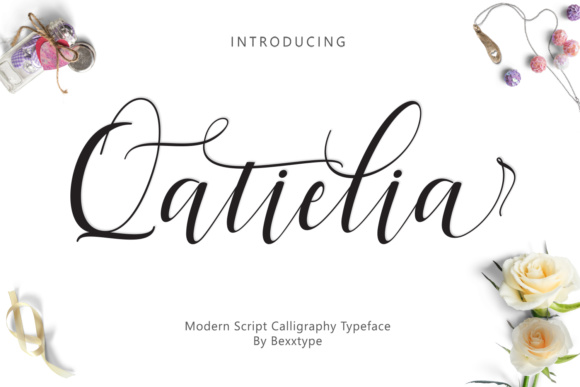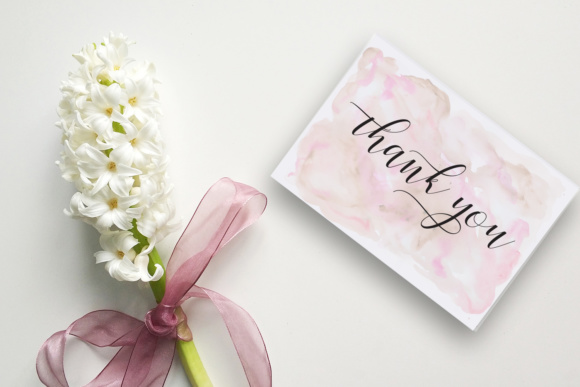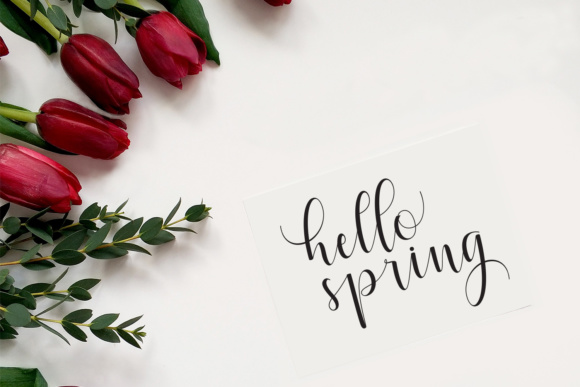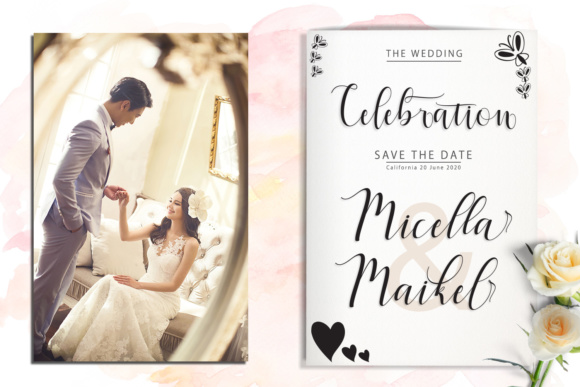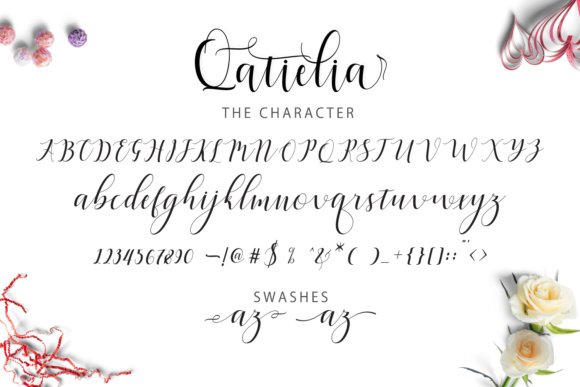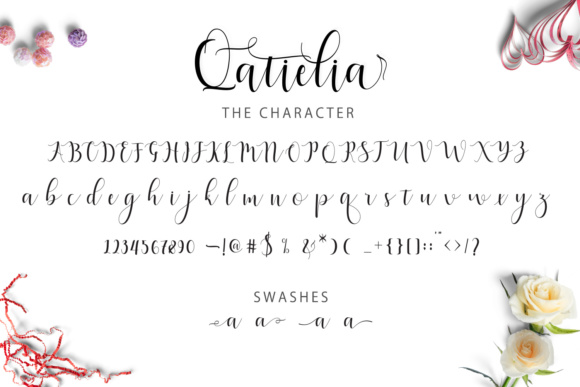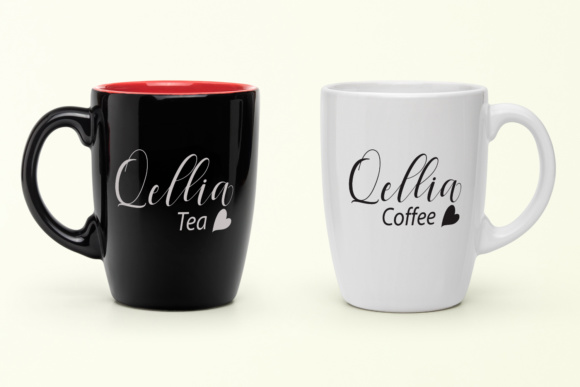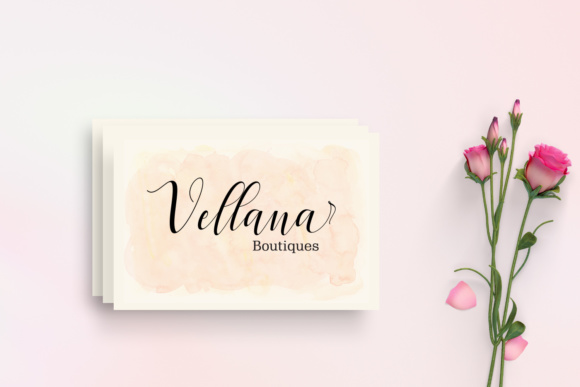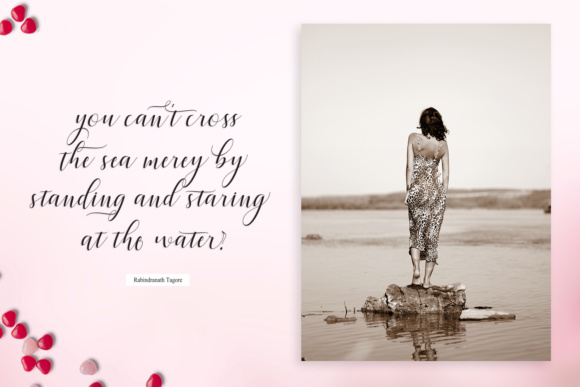
Qatielia Family Font
About Qatielia Family Font
Qatielia is a modern script family which comes with 4 styles + a bonus file. Every single letter has been carefully crafted to make your text look beautiful. With it’s modern script style this font isperfect for many different project such as: weddings, invitations, greeting cards, posters, name card and much more!